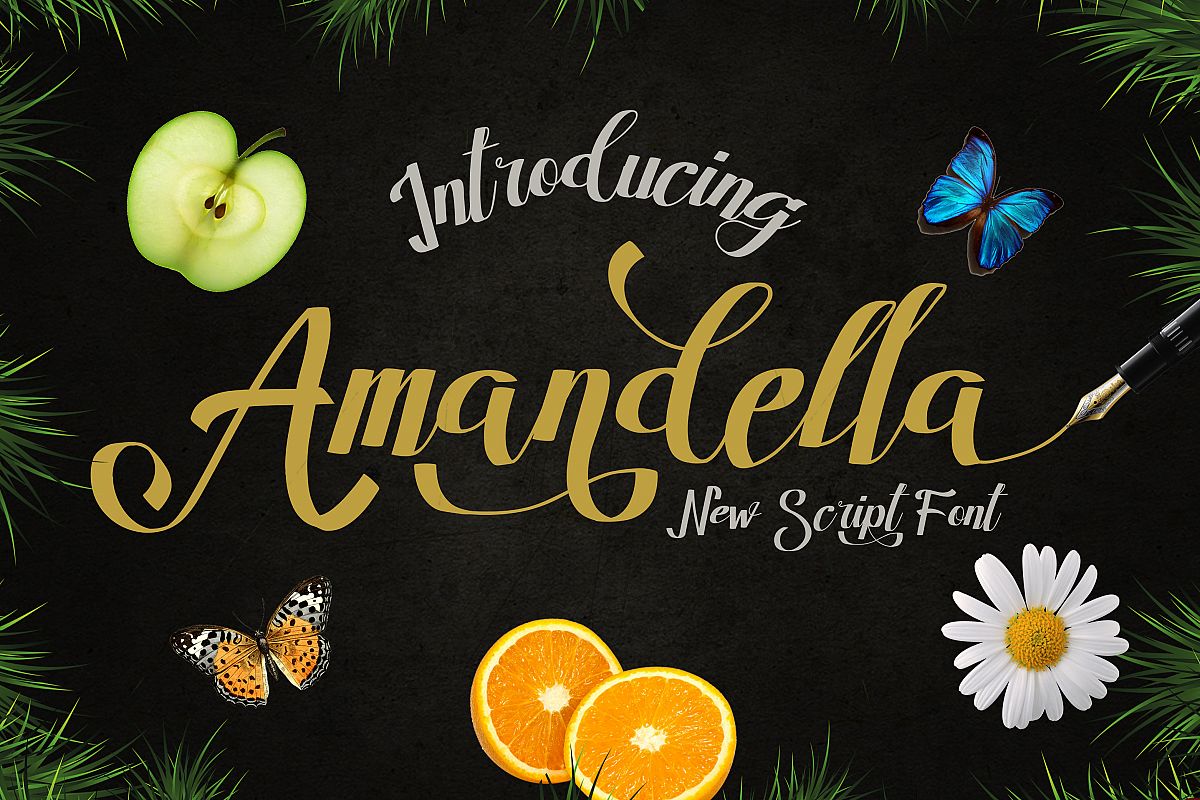
Amandella Script
Introducing
Amandella a handwriting font with cool character! Amandella come more than 300 glyphs and this perfect for poster design, book covers, merchandise, fashion campaigns, newsletters, branding, advertising, magazines, greeting cards, album covers, and quote designs and more.
Feature
• UPPERCASE
• lowercase
• Number & Symbol
• International Glyps
• Alternative UPPERCASE
• Alternative lowercase
• Ligatures lowercase